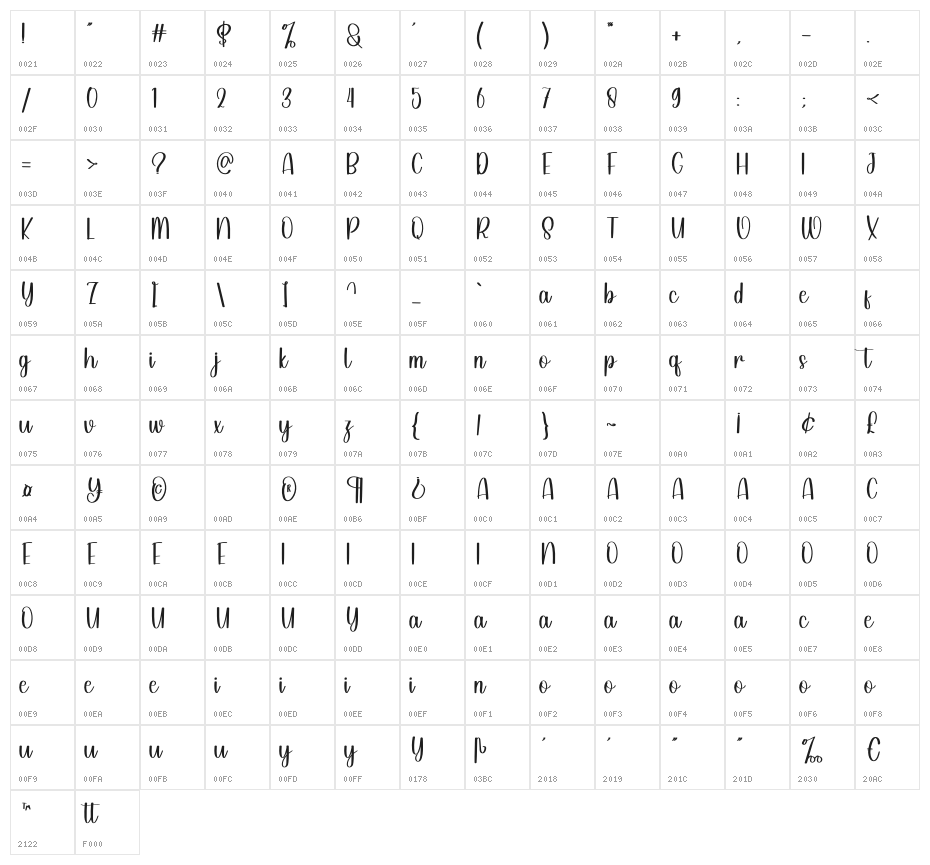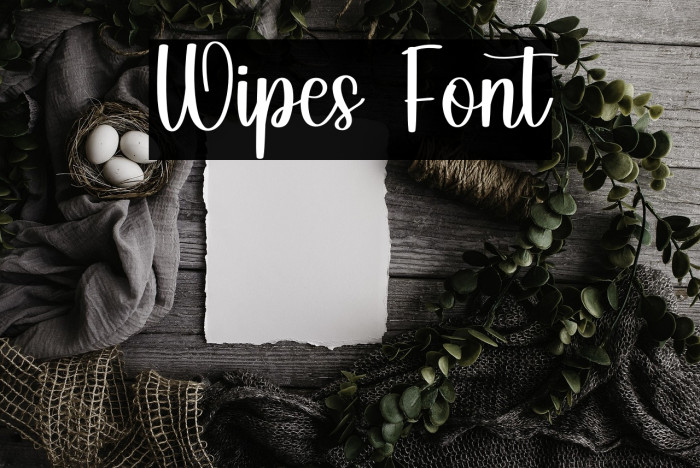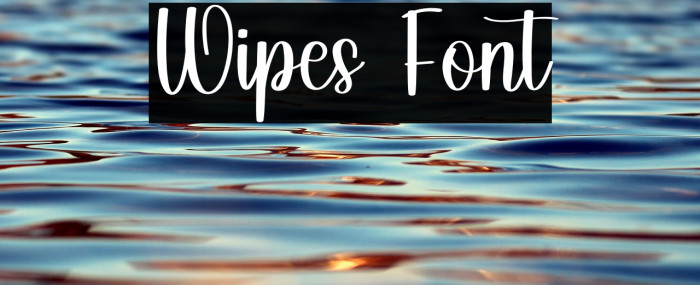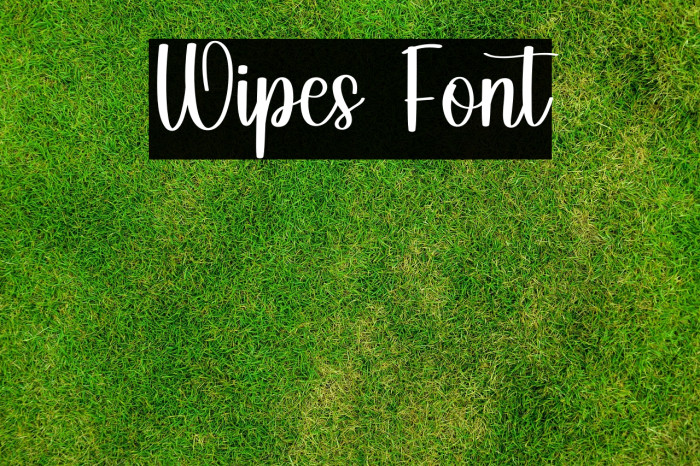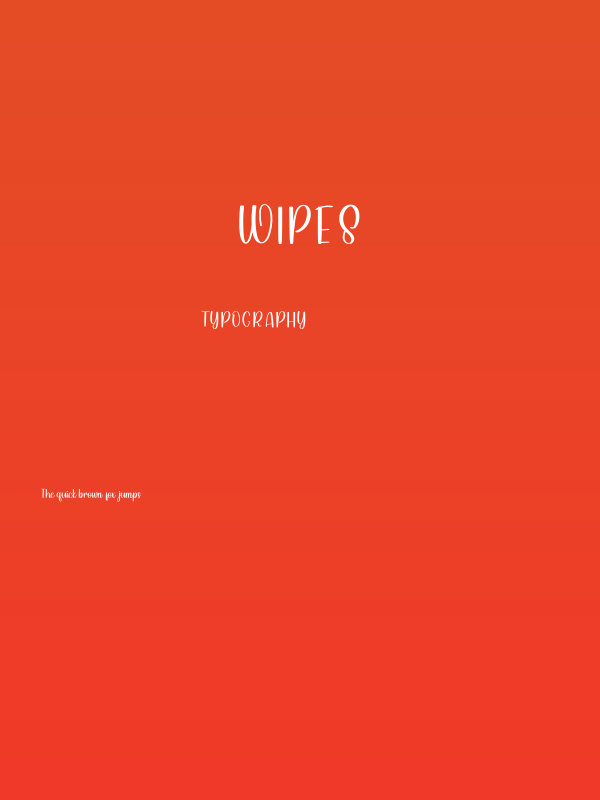
Wipes Font
Wipes Description
This font features a playful and dynamic script style with a handwritten feel. The uppercase letters are tall and slender, with a slight slant that adds a sense of movement. The lowercase letters are more fluid, with elegant loops and curves that create a cohesive flow. The numbers maintain the same lively style, ensuring consistency across different uses. Special characters are designed to complement the overall aesthetic, making them suitable for creative projects. The font's unique charm and personality make it ideal for designs that require a personal touch.